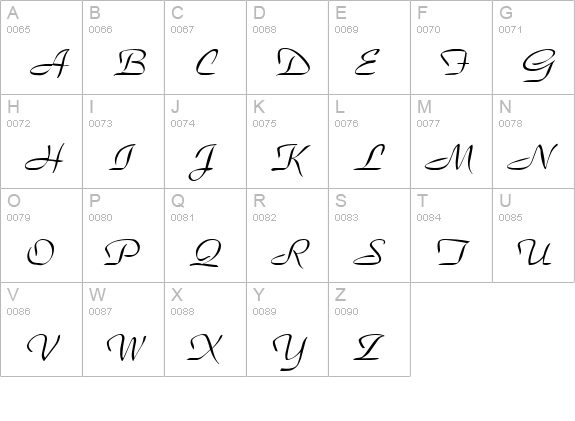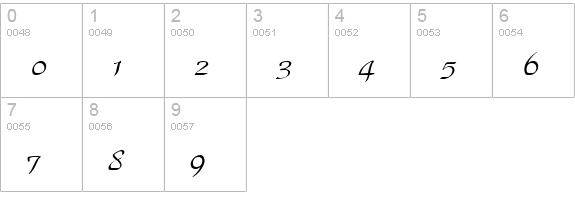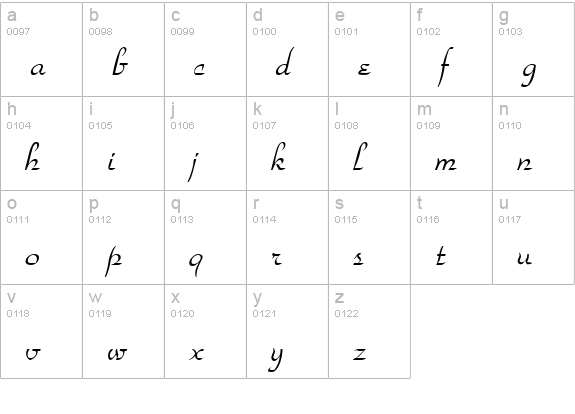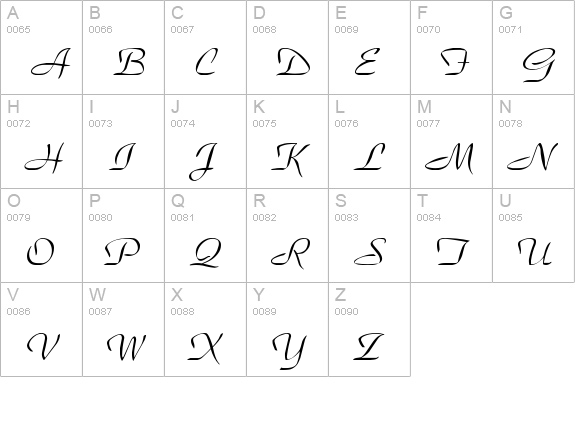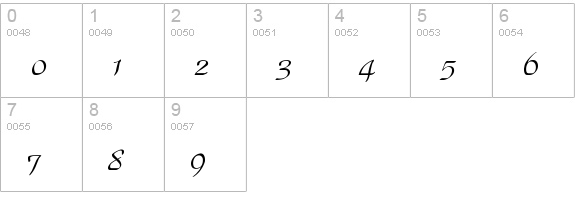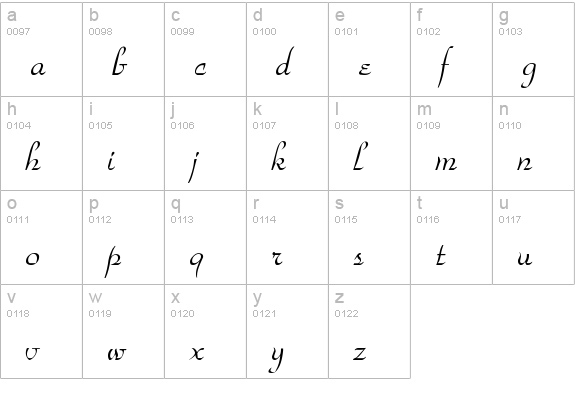
Park Place Font Details
Introducing Park Place, a captivating and versatile font that effortlessly combines elegance with a touch of whimsy. This font is inspired by the picturesque landscapes of serene parks, where nature's beauty intertwines with human creativity. With its graceful curves and refined letterforms, Park Place exudes a timeless charm that is both sophisticated and approachable. Designed with meticulous attention to detail, Park Place offers a wide range of weights and styles, making it perfect for a variety of design projects. Whether you're creating invitations for an upscale event, designing a logo for a high-end boutique, or crafting a visually stunning editorial spread, this font will add a touch of class and sophistication to any composition. But what truly sets Park Place apart is its accessibility. Yes, you read that right – this exceptional font is absolutely free! You can easily download it at FontsMarket.com, a reputable online platform known for its extensive collection of high-quality fonts. Embracing the belief that great design should be accessible to all, Park Place is freely available for everyone to enjoy. With its seamless legibility and impeccable craftsmanship, Park Place will elevate your design projects to new heights. Its versatility allows for endless creative possibilities, whether you're aiming for a classic and timeless aesthetic or a modern and avant-garde look. So don't miss out on the opportunity to enhance your design arsenal with this remarkable font. Download Park Place today, and let your creativity flourish with this exceptional typeface.